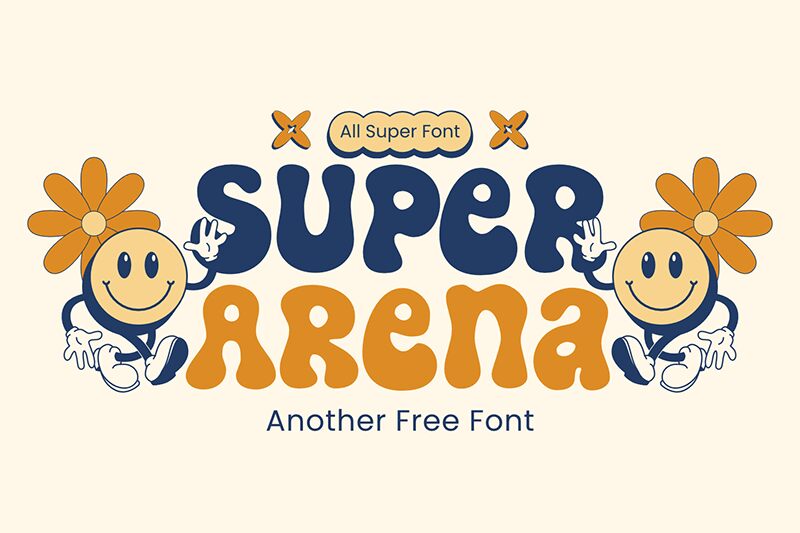
Super Arena
Super Arena font by fsuarez913 is a bold and groovy display font that embraces playful, whimsical, and cartoonish vibes. It exudes a retro-inspired touch that takes it back to the ’70s with its bubbly shapes and rounded edges. This free decorative typeface is great for adding a fun element to your printed and digital projects.
Use Super Arena in titles, book covers, magazines, greeting cards, invitations, movie posters (such as comedies), brand design/packaging, ads for recreational places (such as amusement parks), apparel designs (such as children’s clothing), online games applications design/posts/typesetting etc.